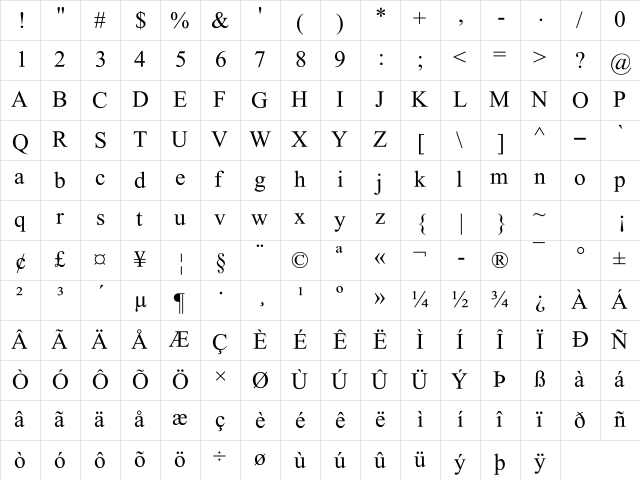
UKIJ Tuz Gezit Regular Font Preview
UKIJ Tuz Gezit Regular
UKIJ Tuz Gezit Regular Font Details
| Foundry | Uyghur Computer Science Association |
| Designer | Tursunjan Sultan (alp) |
Design Context for UKIJ Tuz Gezit Typeface
UKIJ Tuz Gezit is a composed and adaptable typeface that performs quietly and consistently across a wide range of design contexts.